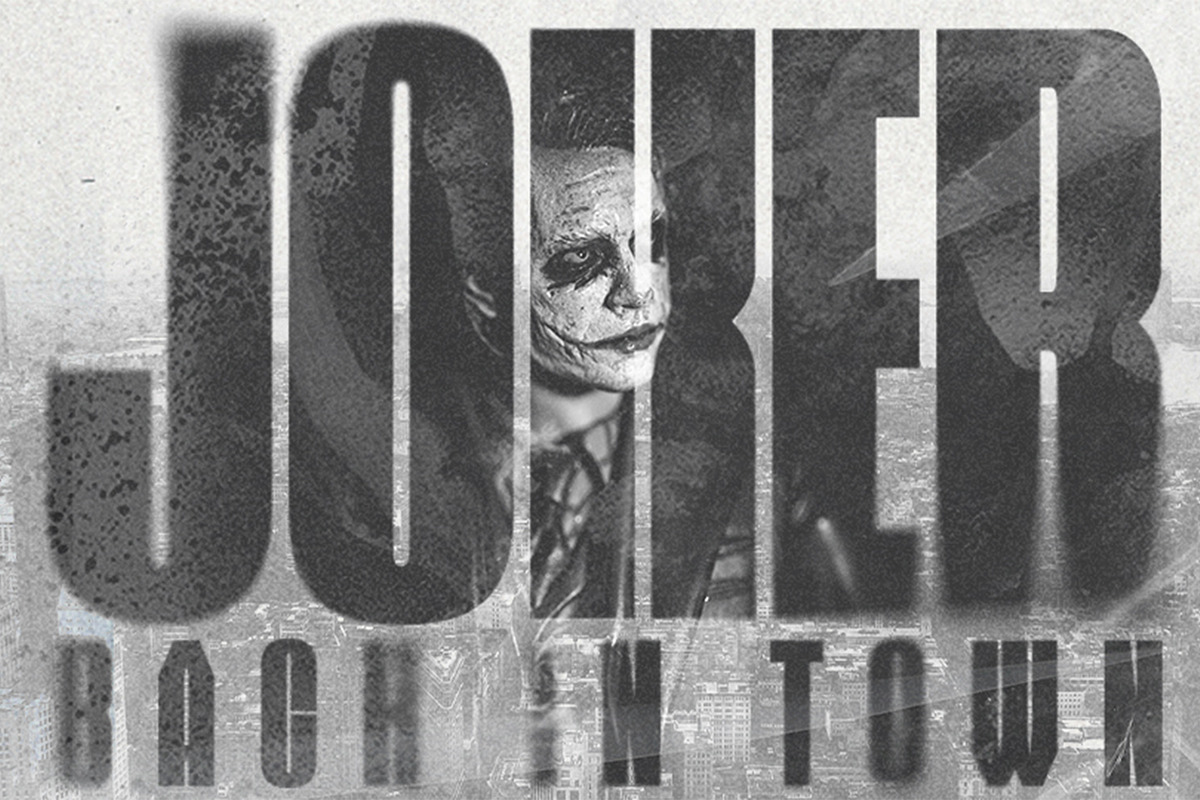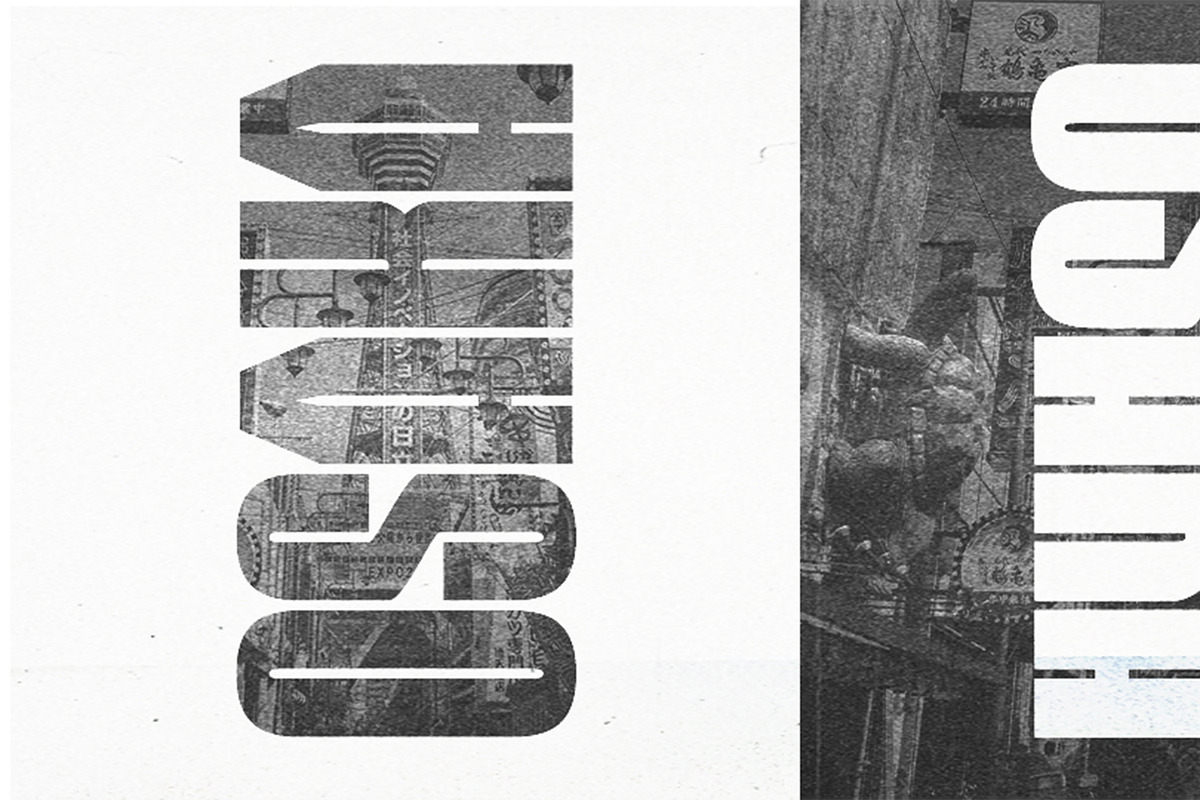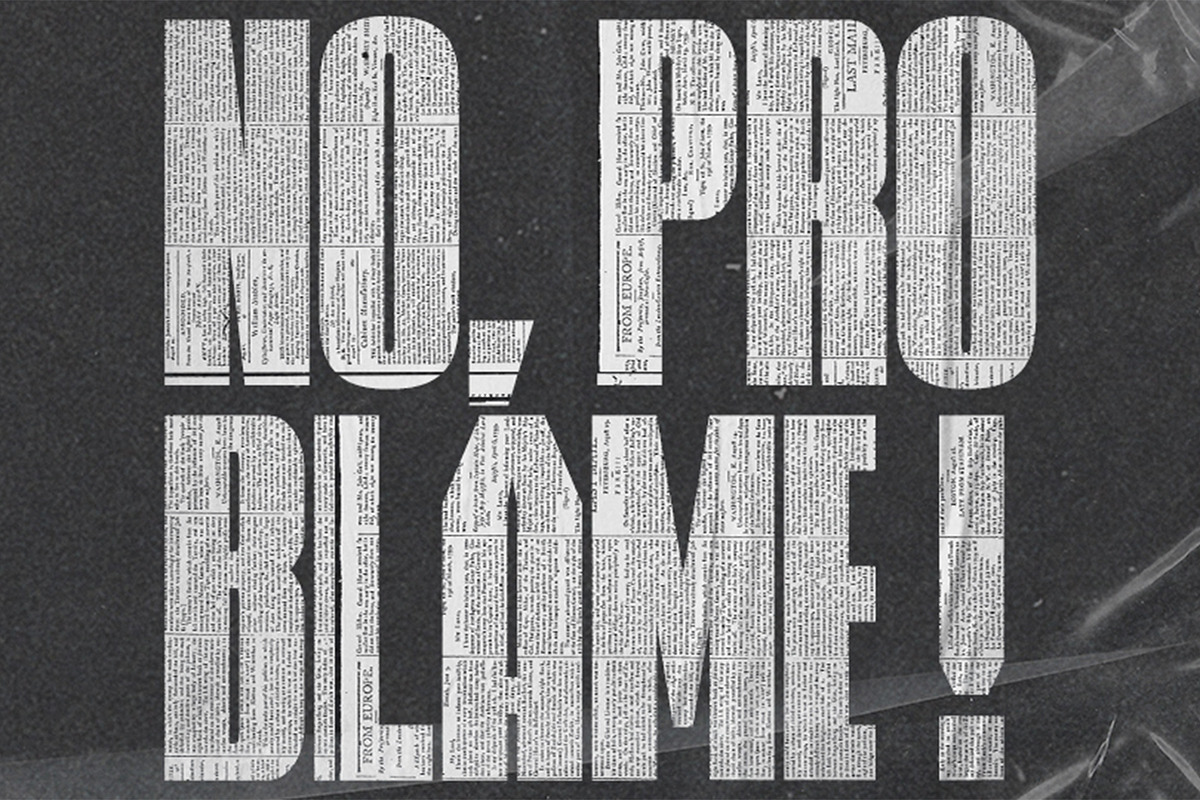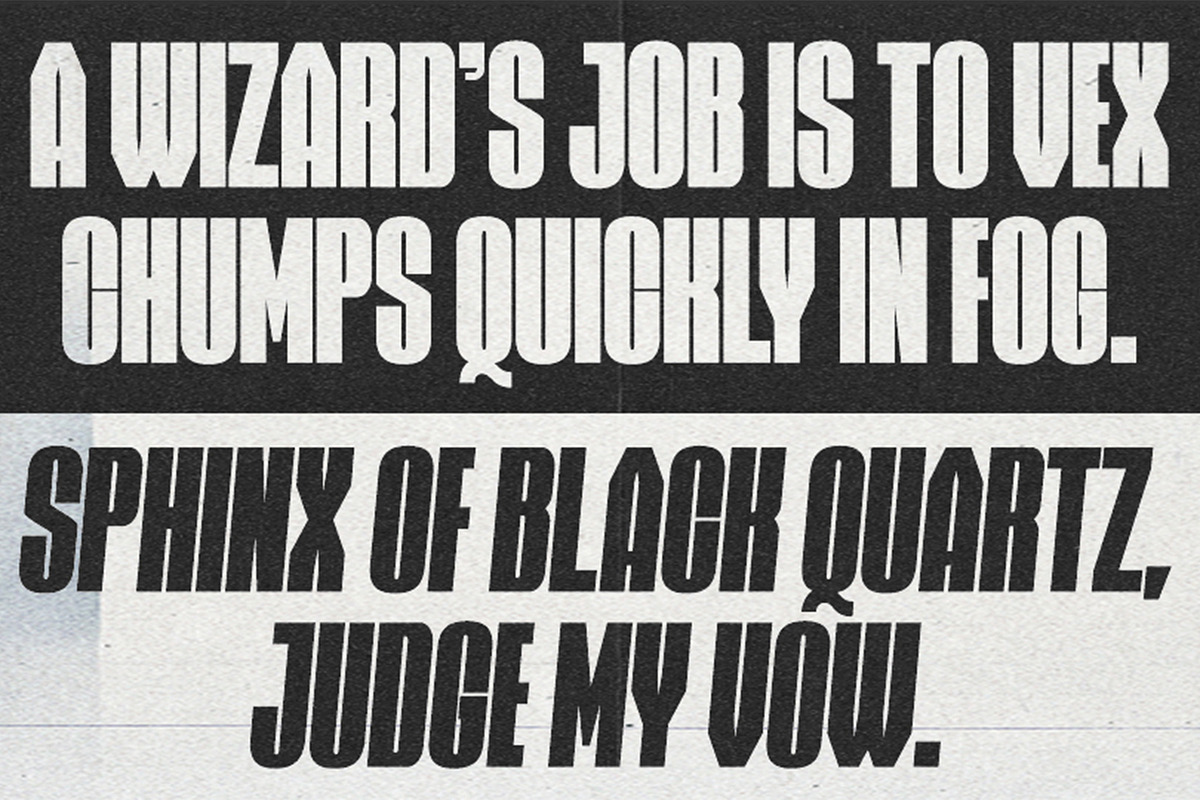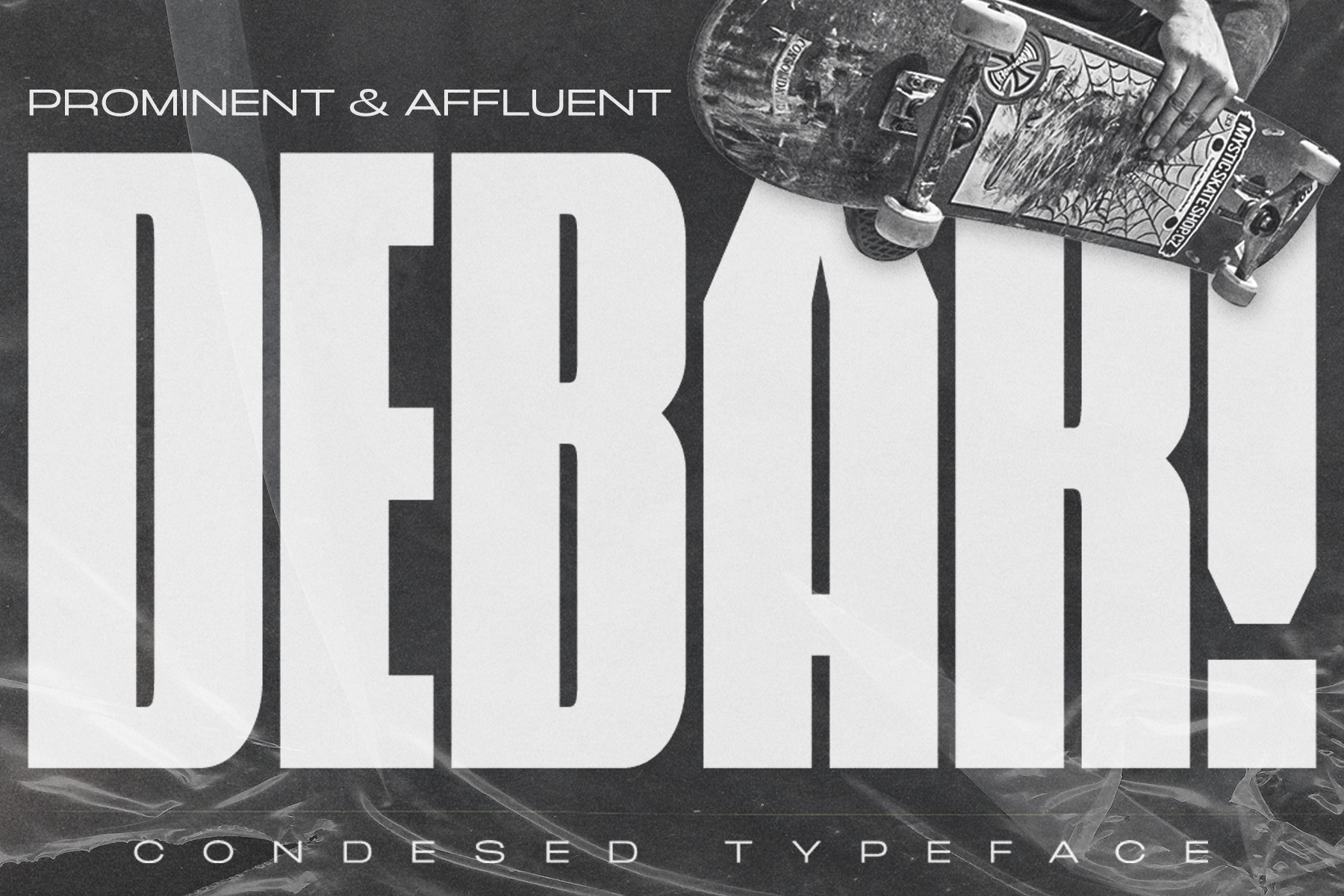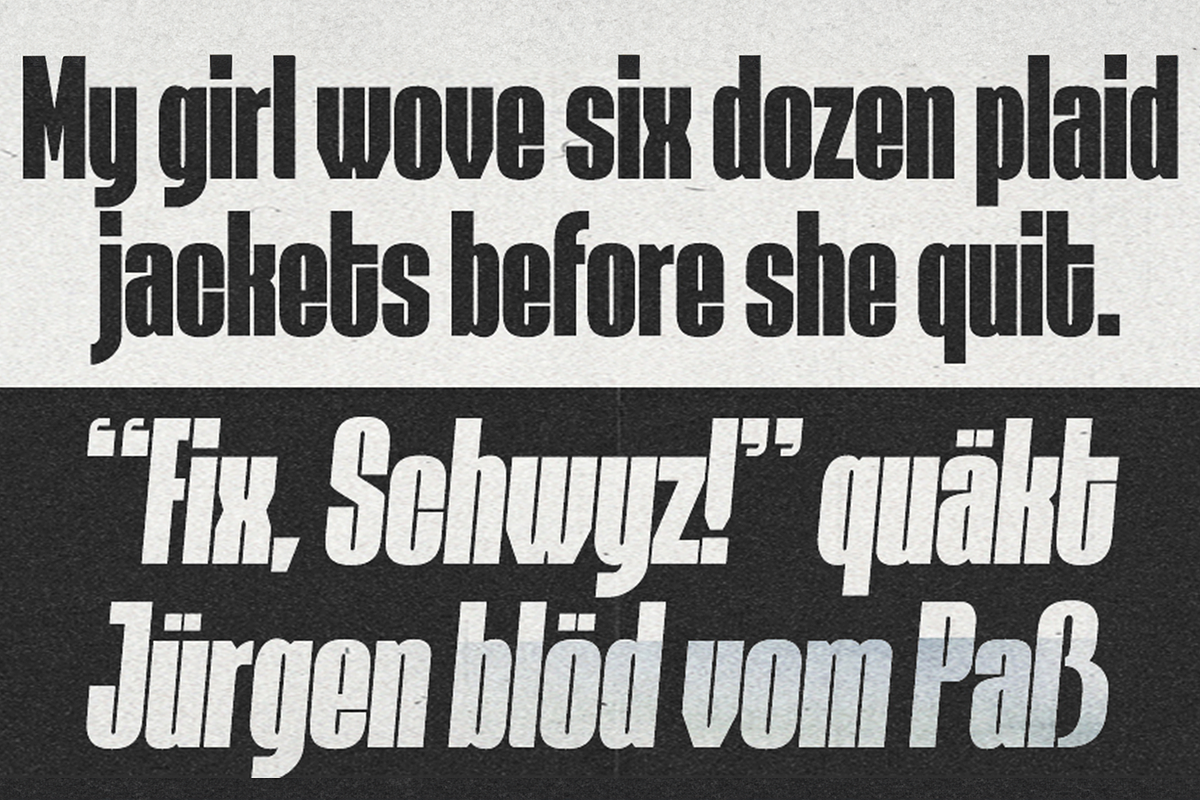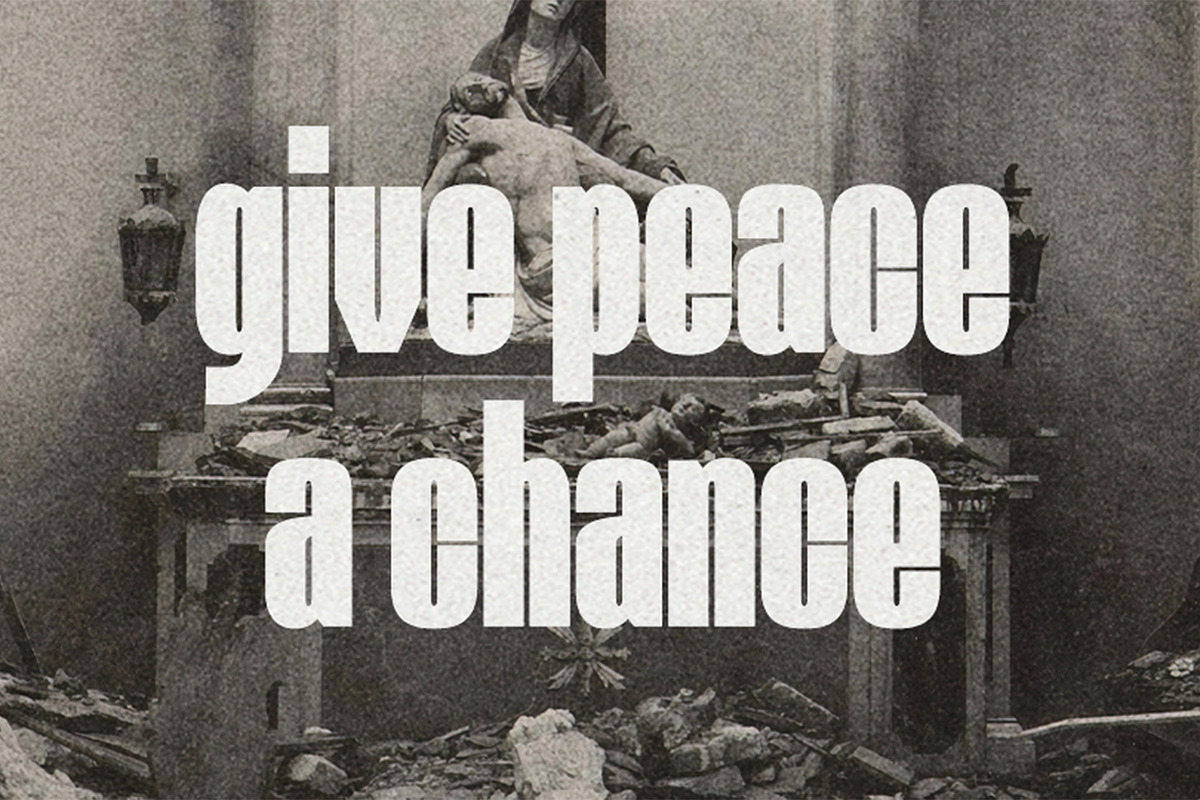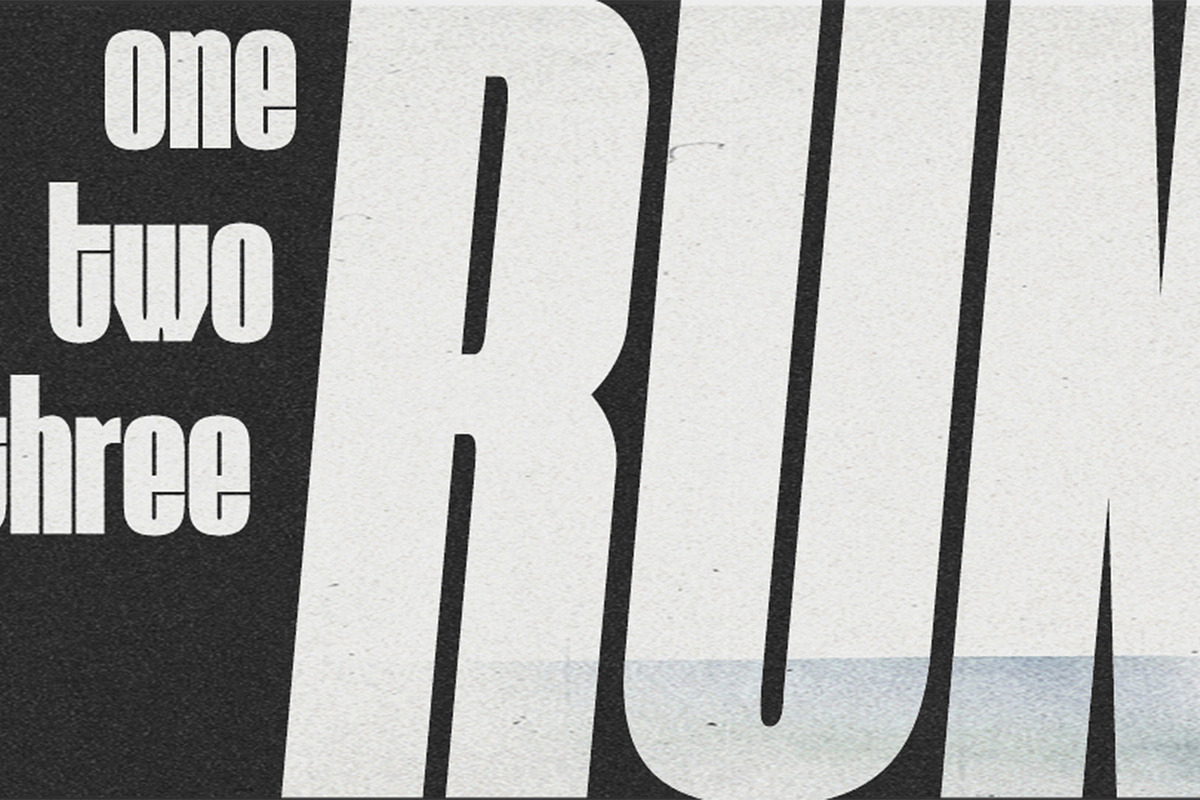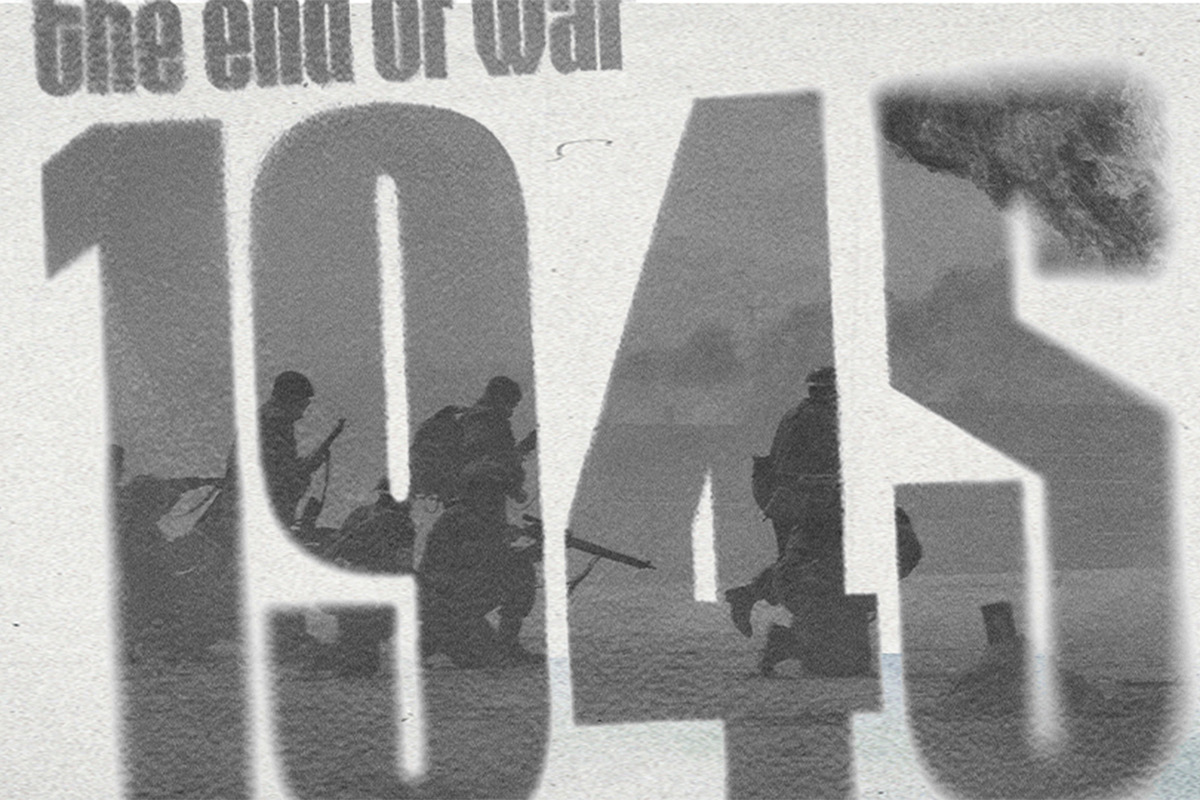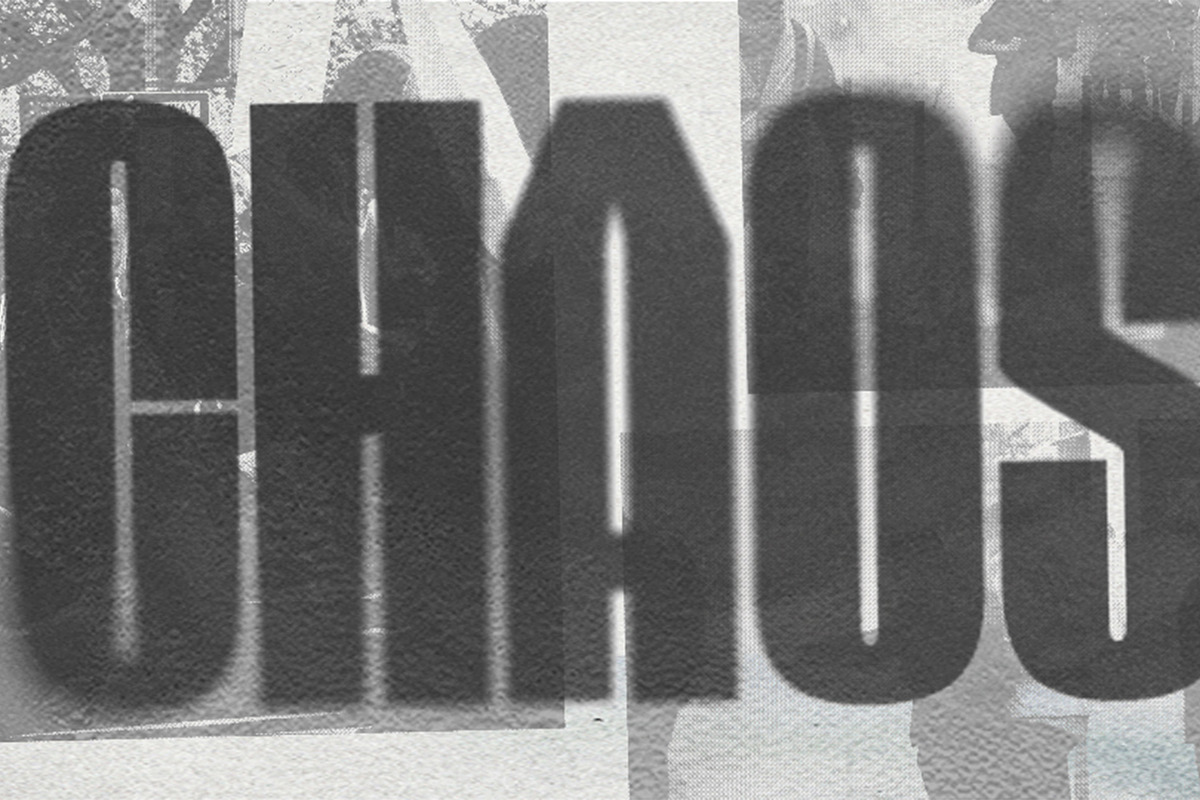
Debar - Display Font
Derived from the iconic style of newspaper headlines, the Debar font boasts a flat, robust, and refined design, commanding attention through its bold strokes and crisp lines, creating an ambiance of utmost professionalism.
Debar is the quintessential choice for projects that demand a blend of timeless elegance and contemporary innovation. It offers two distinctive styles: regular and oblique, rendering it remarkably versatile and adaptable to a wide array of thematic requirements.
With the Debar font within your creative toolkit, you can explore limitless possibilities and push your creative boundaries to new extents. Whether your goal is to fashion striking logos or to compose alluring marketing collateral, this font’s exceptional versatility guarantees an elevation of every project to unprecedented heights of excellence.